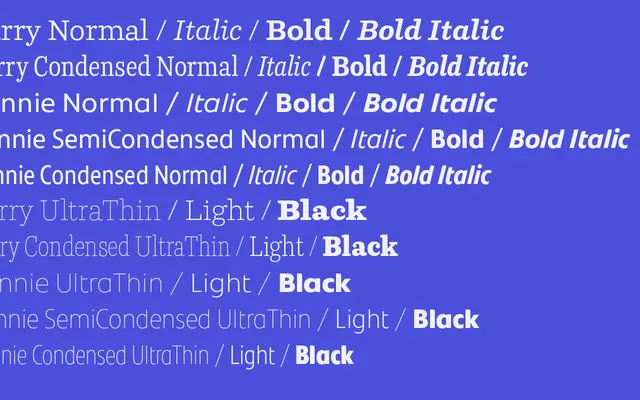
Parry Editorial Design Packs
Original Type · Artur Schmal
Cross-family licensing bundles by Artur Schmal drawing on Parry, Parry Grotesque and Bonnie for editorial typographic systems.
Three tiered packs pulling styles from Parry, Parry Grotesque, Parry Condensed, Parry Grotesque Condensed, Bonnie and its condensed variants into a single licence. The Basic pack covers 12 styles, the Extensive 28, and the Parry Bonnie pack 35, each designed to give editorial projects a coherent palette without licensing each family separately. Language support spans a wide range of Latin-script languages, and styles include italics and condensed cuts suited to complex editorial layouts.
The packs centre on Parry and Parry Grotesque, which are grotesque and humanist sans families, alongside Bonnie, a serif. The overall character of the collection skews grotesque sans-led.